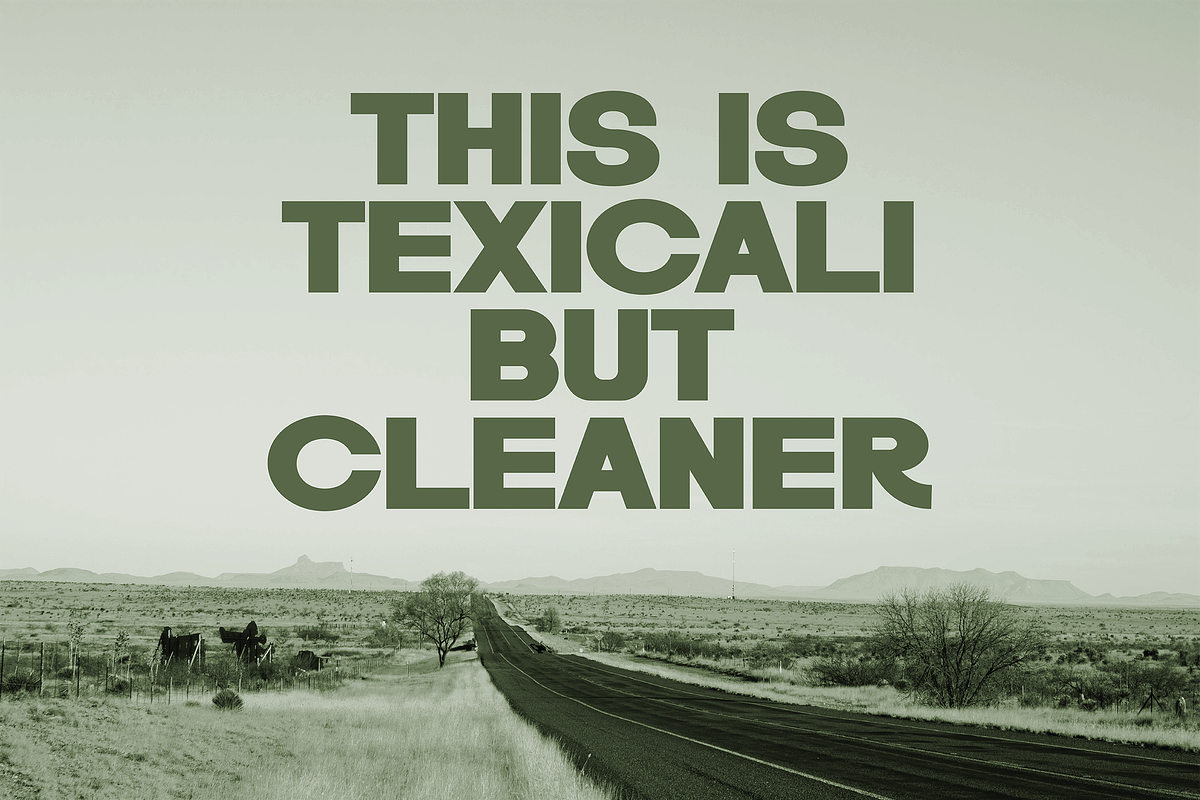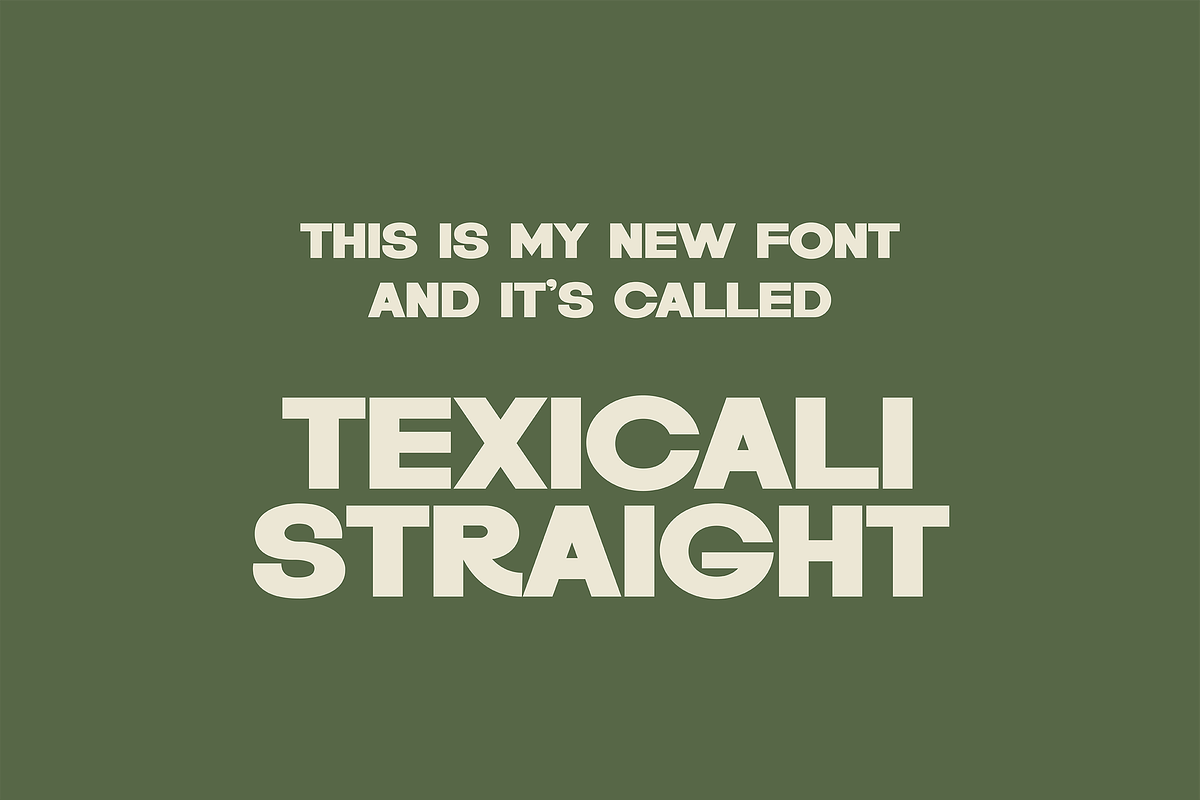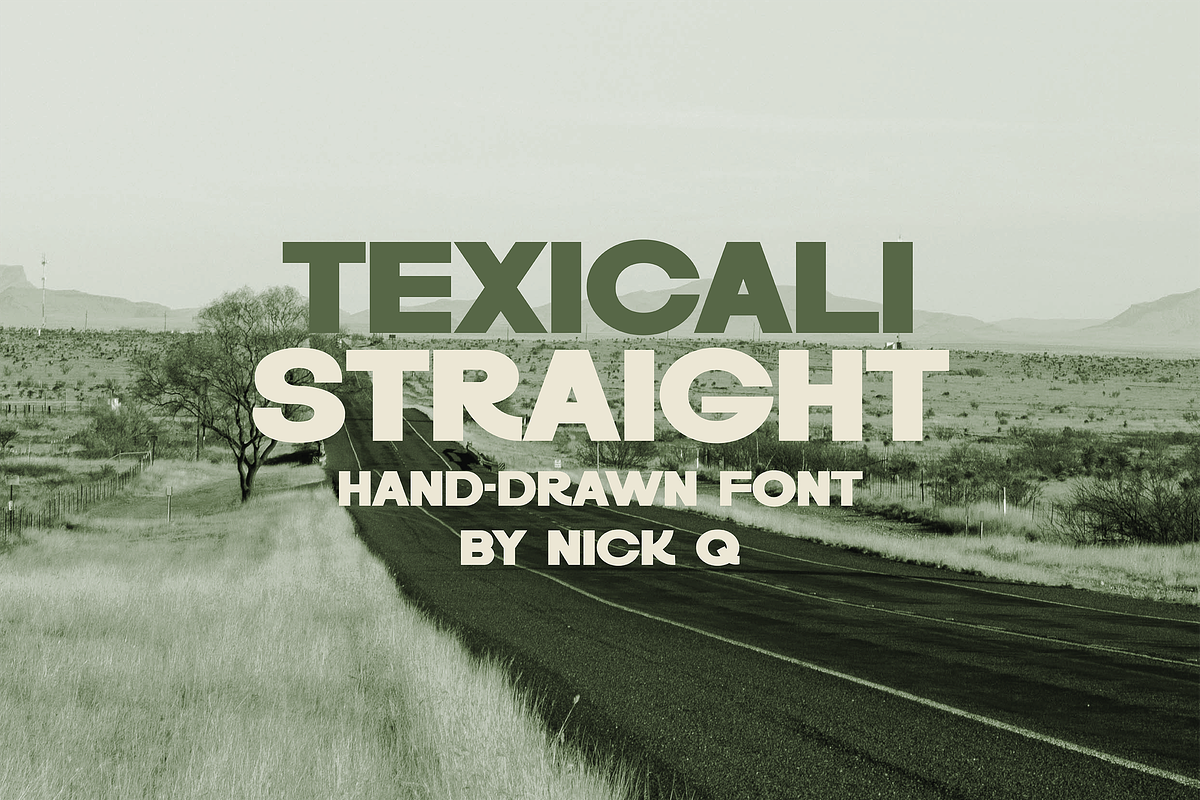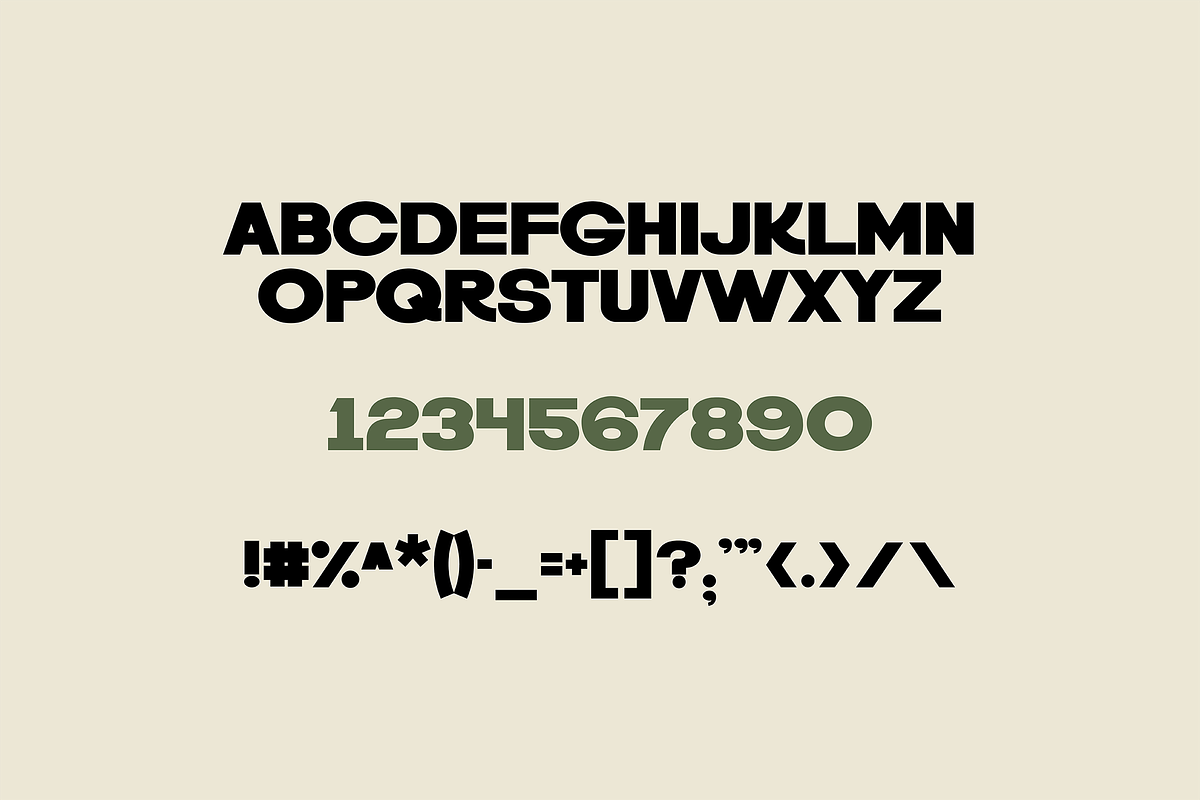
Texicali Straight Hand Drawn Font
Another version of my popular Texicali Font but without the rounded corners and hand drawn lines. This one is clean and straight.